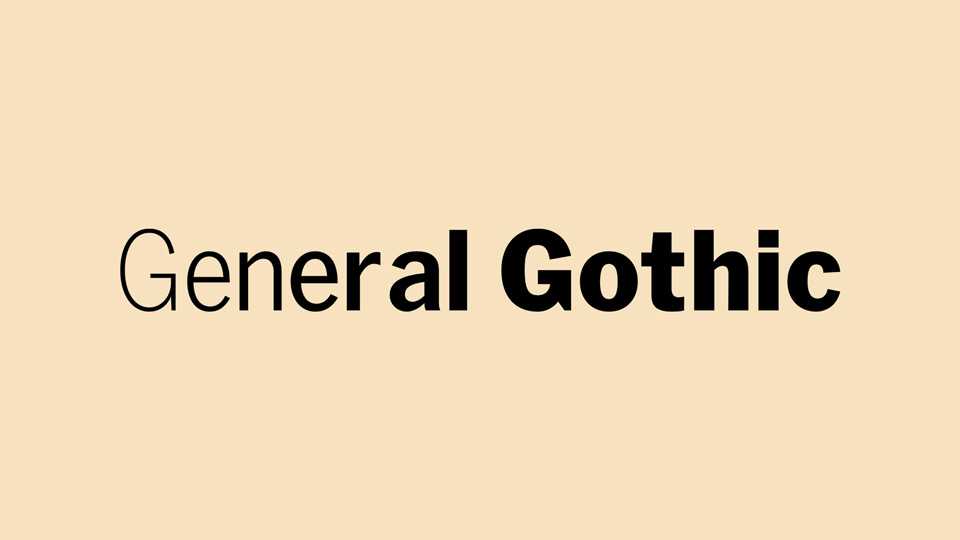
Download General Gothic font, a sans serif typeface inspired by Franklin Gothic. A redrawn version of what was loosely considered the extended ATF Gothic font family – Lightline Gothic, News Gothic and Franklin Gothic – used as masters to generate a more complete family from extra light to black.
Designer: Barry Mieny